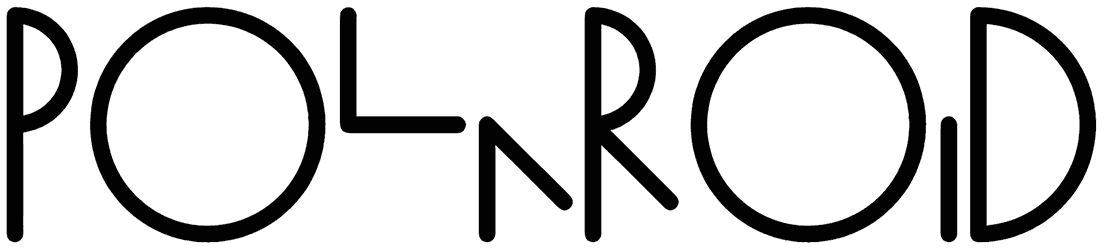
Polaroid Font
A mixture of uppercase and lowercase letters comes across for assembling a bold and modern picture that works well for futuristic design projects. Polaroid font, as a geometric font, goes great for displays related to high-tech industries, YouTube thumbnails, mysterious graphic designs, futuristic movies, and games. The minimal font without numbers and punctuation might be a little bit unreadable, but it is worth trying out!